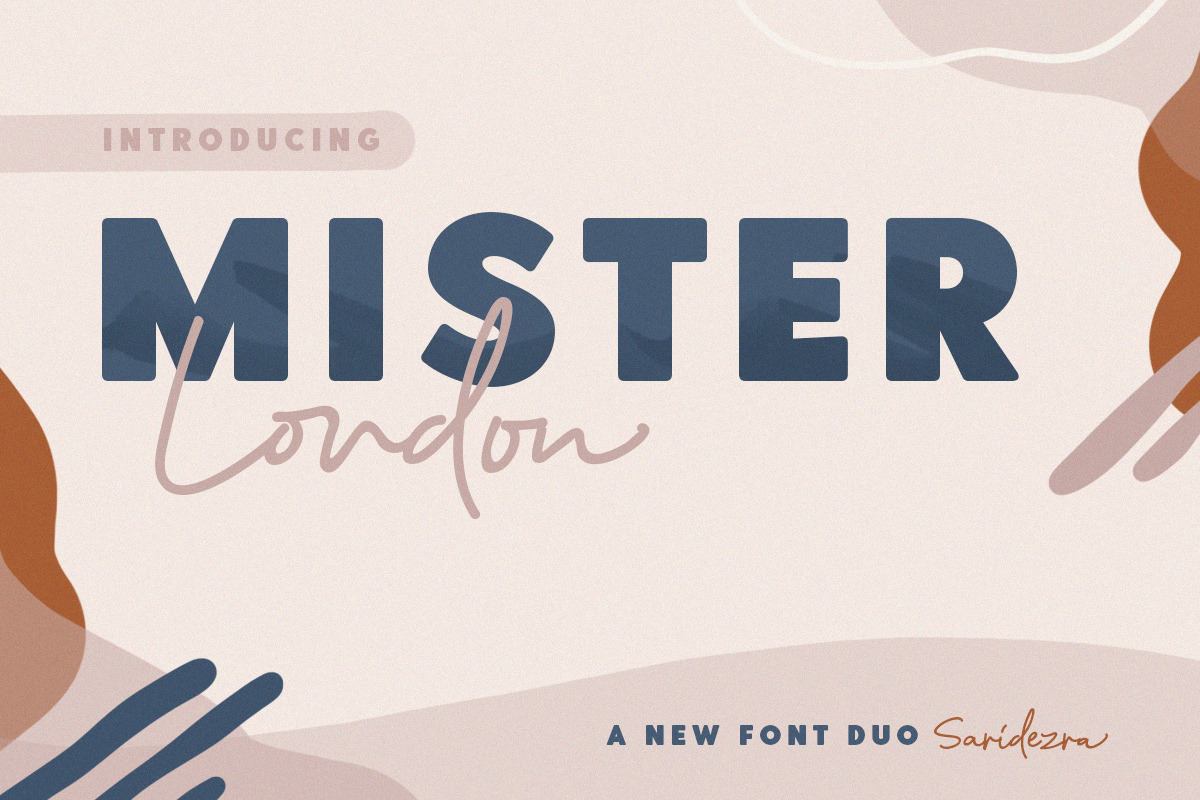
This sophisticated font is perfect for luxury branding, premium packaging, fashion magazines, upscale restaurant menus, boutique signage, high-end cosmetics, gentleman's club branding, and elegant corporate identities. Its refined British-inspired character makes it ideal for projects requiring distinguished sophistication and metropolitan elegance.
Mister London Bold Sans Script Font is exciting because it masterfully combines the boldness of sans-serif typography with the elegance of script lettering, creating a unique hybrid that exudes confidence and refinement. The font features strong stroke weight balanced with graceful curves that evoke the distinguished atmosphere of London's finest establishments. Its contemporary interpretation of classic British typography ensures both modern appeal and timeless sophistication.
The Mister London Bold Sans Script Font family includes multiple weight variations, stylistic alternates, and decorative flourishes that enhance its versatility. Many versions feature extended character sets with international support and special ligatures that maintain the font's sophisticated flow.
Whether you're designing for luxury brands, upscale hospitality, or prestigious professional services, Mister London Bold Sans Script Font Free Download delivers metropolitan sophistication with bold personality. This typeface combines the reliability of sans-serif readability with the elegance of script styling, making it perfect for brands that demand both strength and refinement. Its distinctive character adds premium appeal to any design while maintaining exceptional legibility across all applications, ensuring sophisticated brand communication that resonates with discerning audiences who appreciate quality, tradition, and contemporary British elegance.